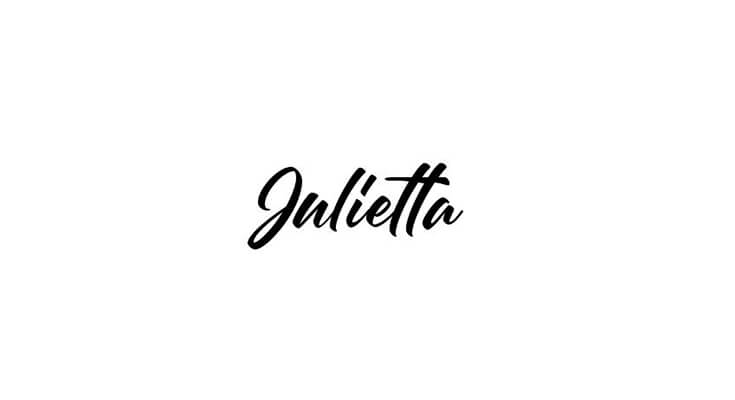
Julietta Font features a thick bold hand lettering brush design that will make your designs stand out from the crowd. Great for bold titles, book covers, greeting cards, and more.
Clément Nicolle, a French font designer, took charge of designing it. and was first released by StereoType on November 6, 2017.
Each of Juliet’s letters is hand-designed. Which shows the dedication and experience of the designer on it. That comes in a single regular style.
This font style has more than 90 characters including numbers, uppercase letters, and a few special characters.
Font Name: | Julietta Font Family |
Style: | Script, Brush, Display |
Font Designer: | Clément Nicolle |
It can handle all kinds of design projects from product packaging to wedding invitations, blog headers, social media posts, greeting cards, movie titles, logos, quotes, movie posters, special quotes, posters, printing, etc.